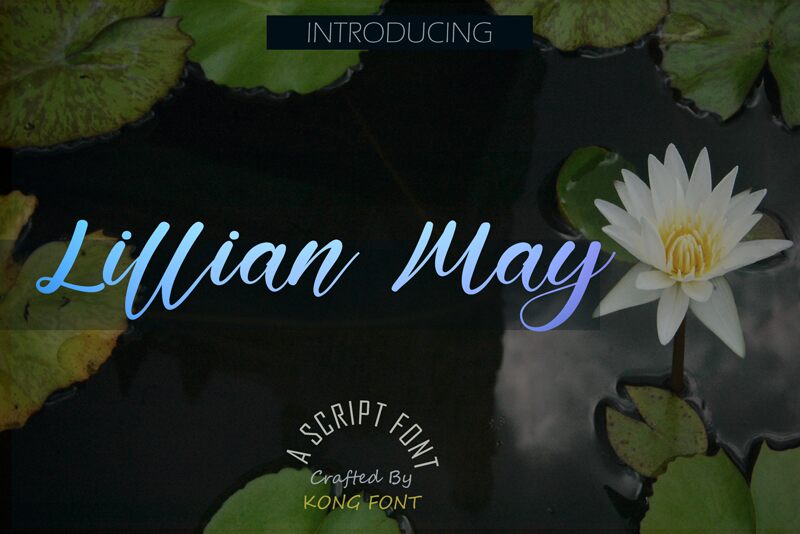
Lillian May font family is designed by Kong Font and includes 2 font styles. Beautiful and expressive, free-flowing calligraphy lines will leave no one indifferent. Slightly contemporary with vintage touches, the letters include elegant stylish curves. This free font family works perfectly in all sizes and gives its best potential when used in larger sizes.
Use Lillian May in poster designs, notebook covers, T-shirt designs, social media banners, and more. Create book covers, product labels and packaging, wedding invitations, greeting cards, stickers, and web design surface elements.